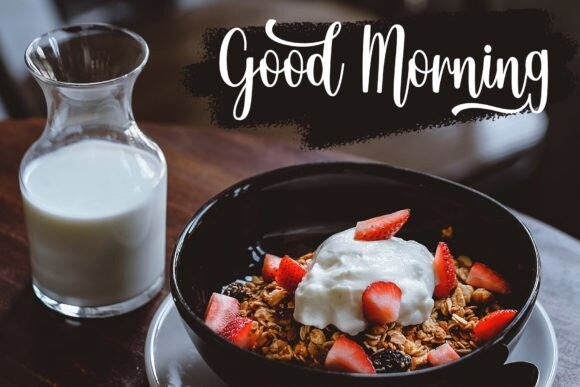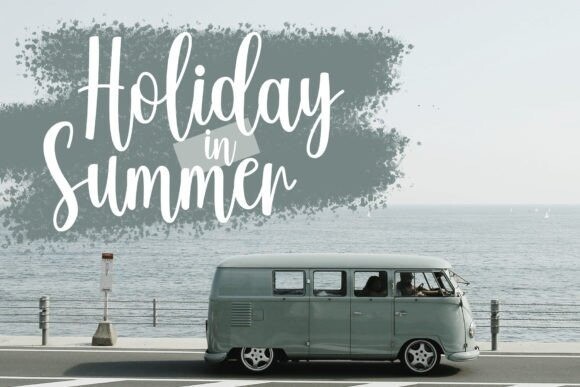
Sunday Morning Font
Sunday Morning is a modern and elegant script font. with a graceful and pleasant character.
looks beautiful and luxurious for any kind of design you need!